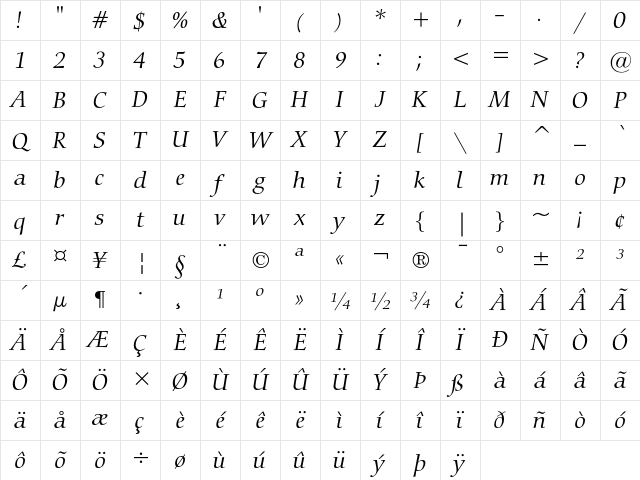
Bitstream Carmina Light Italic
Bitstream Carmina Family
Bitstream Carmina Light Italic
Design Context for Bitstream Carmina
Bitstream Carmina is a composed and adaptable typeface that performs quietly and consistently across a wide range of design contexts. The slanted form adds forward momentum and visual energy. Its slender proportions lend an understated elegance to any composition.
Pro Tip: Use Bitstream Carmina for emphasis, pull quotes, and subheadings where its slanted energy can add rhythm to the layout.